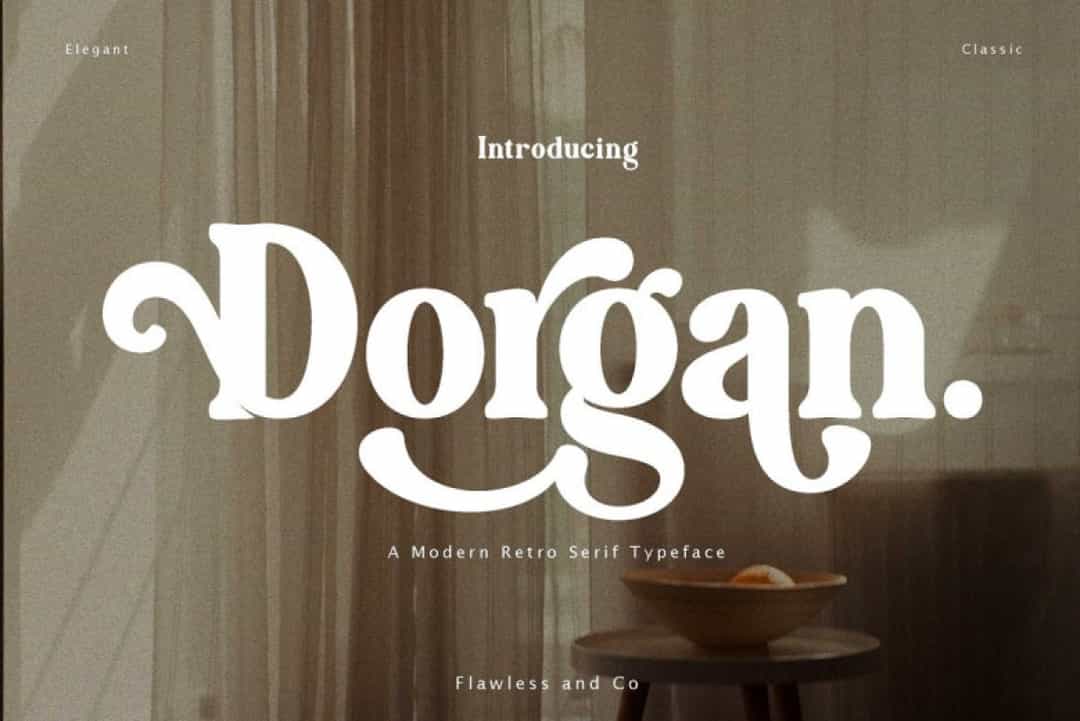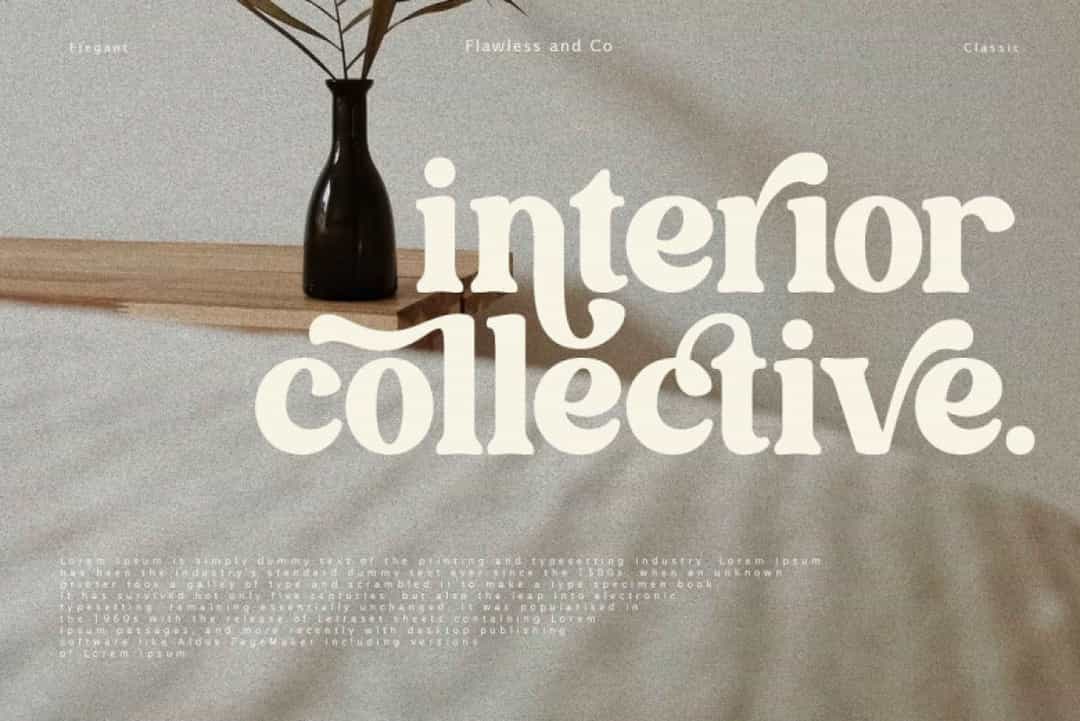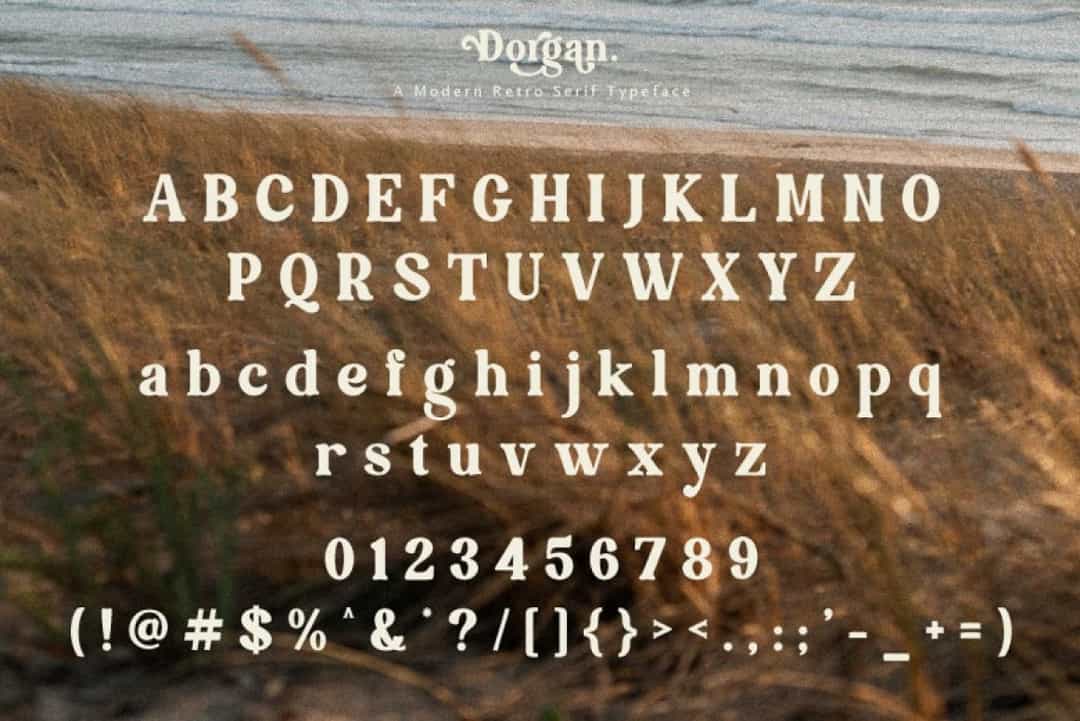
Dorgan is a contemporary vintage serif typeface featuring an active and captivating design perfect for boho-themed designs like posters, T-shirts, branding materials, logos, business cards, quotes, photography and much more. You may want to use different characters for added visual interest!